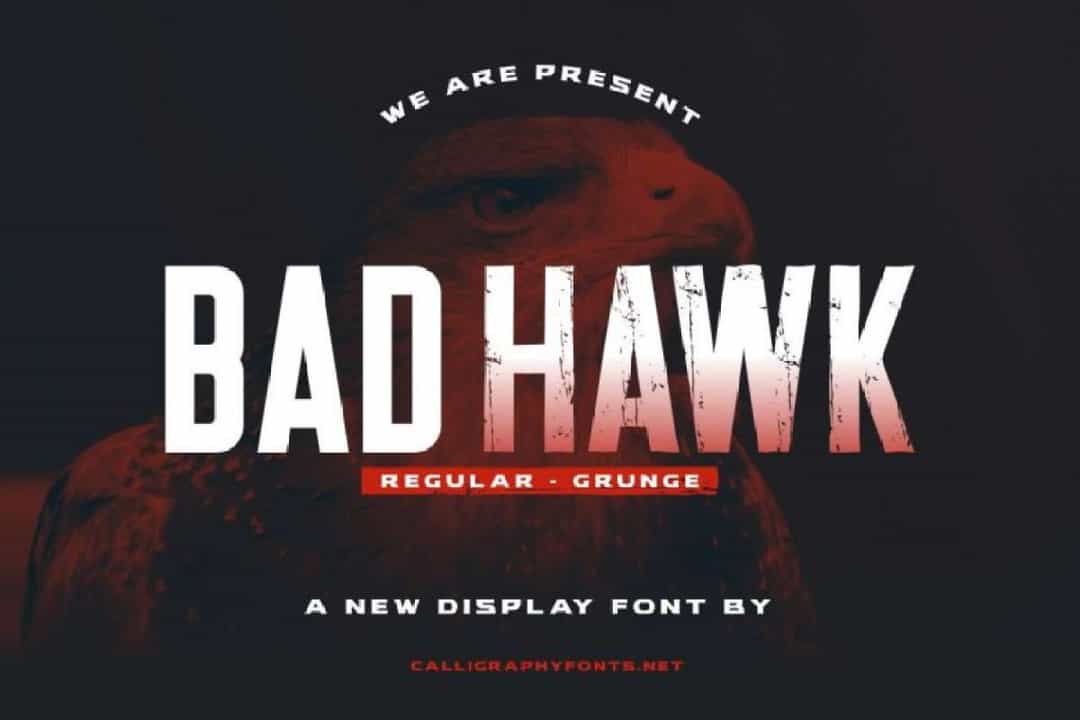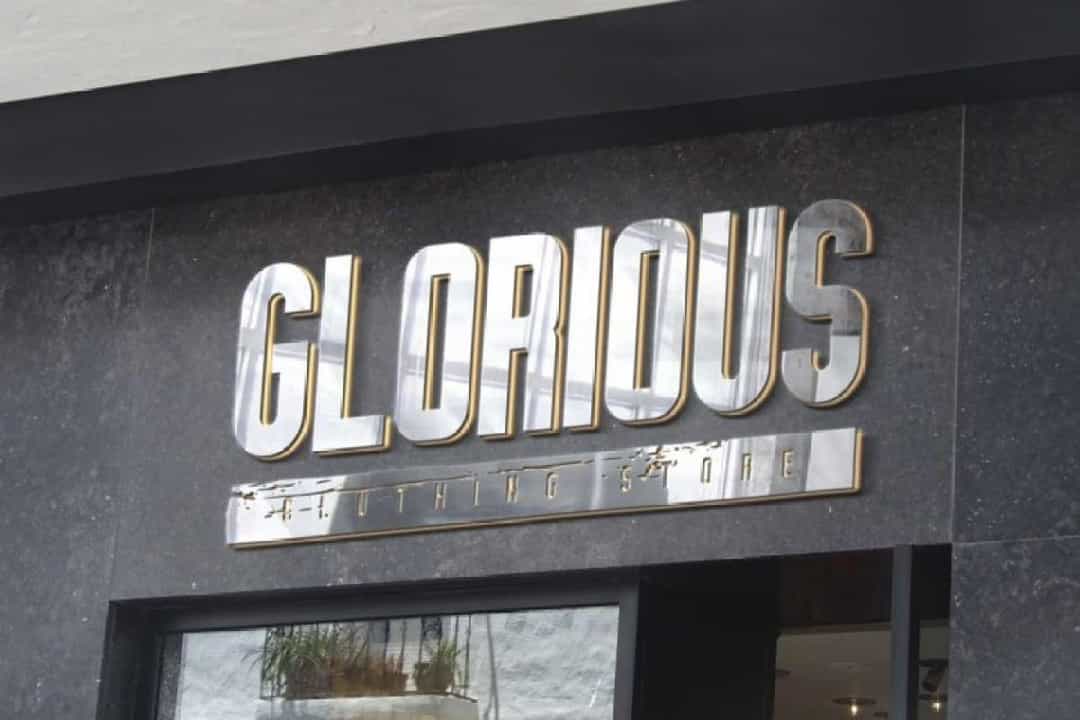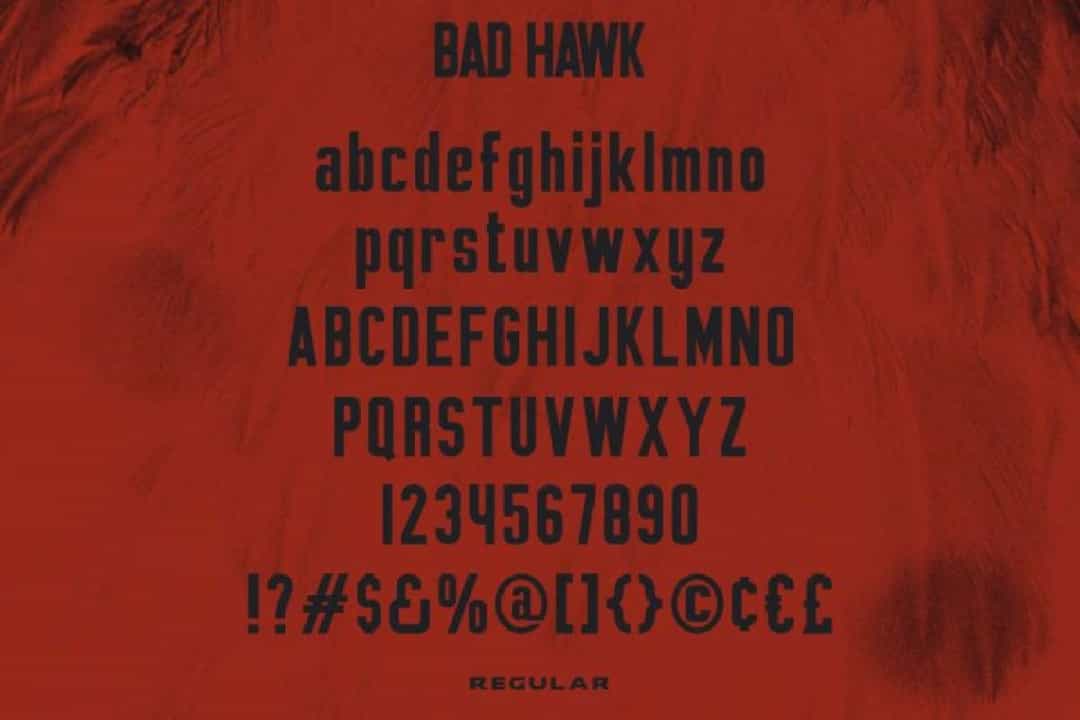
Bad Hawk is an extremely modern non-serif typeface. Featuring uppercase letters in multiple languages and numbers as well as styles including modern, bold techno, grunge modern masculine etc. it makes an excellent font choice for logos, brandings, headlines etc.